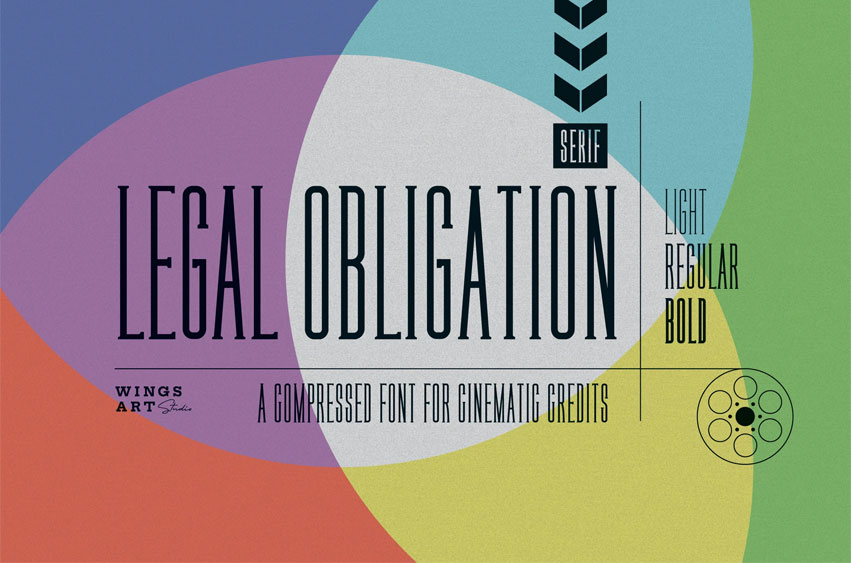
Legal Obligation Serif Font
Legal Obligation Serif Font is a workmanlike tool for adding extensive cast and crew information to movie posters without dominating the overall layout.
Supplied with lowercase characters and three weights.